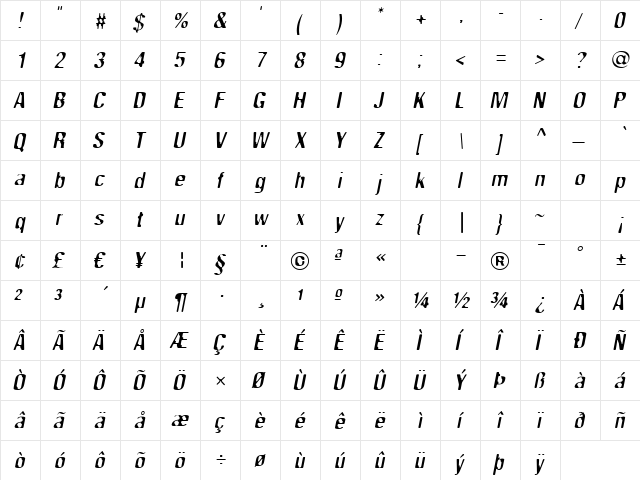
SB Tokyo Oblique
Design Context for SB Tokyo Typeface
SB Tokyo takes a measured approach to typography — its balanced proportions and neutral character make it a reliable workhorse for both digital and print work. Its italic angle brings a sense of urgency and motion to the letterforms.
Pro Tip: Try SB Tokyo for annotation and caption copy alongside an upright companion — the contrast in angle creates a dynamic but ordered typographic system.